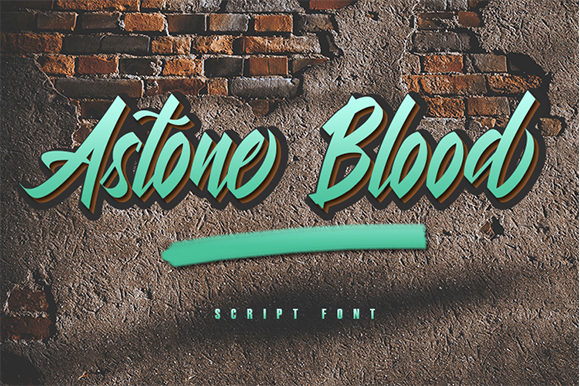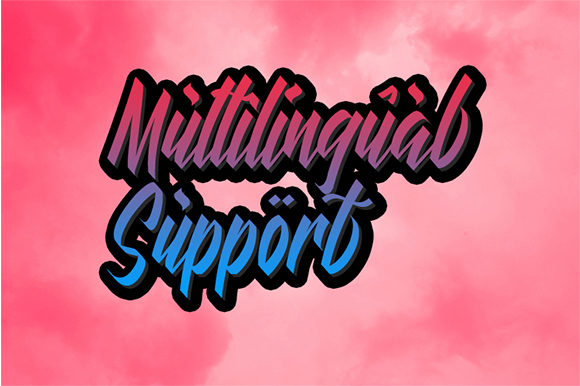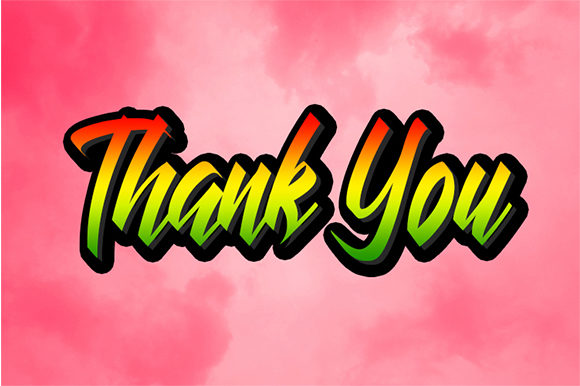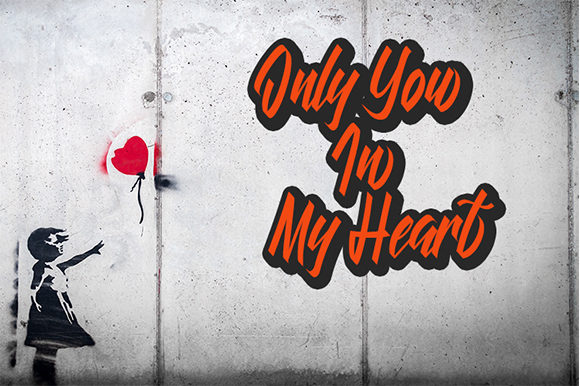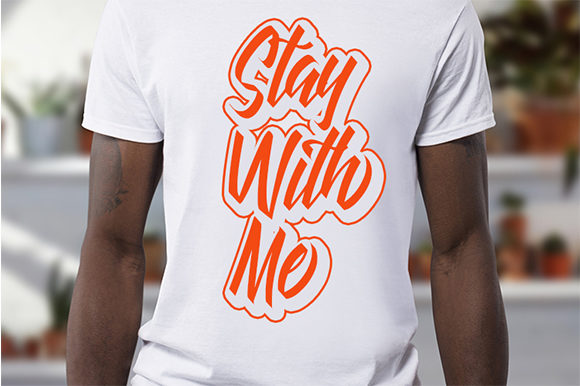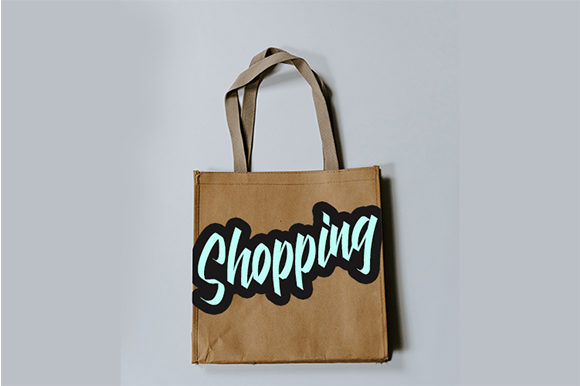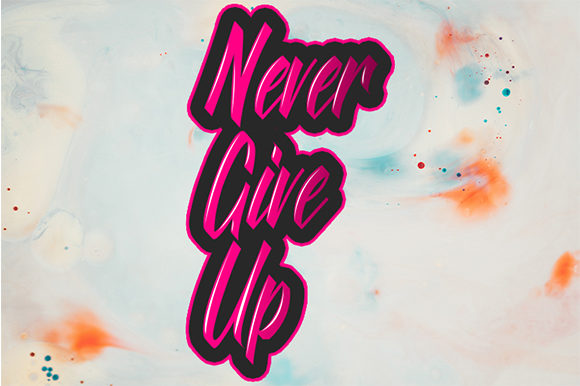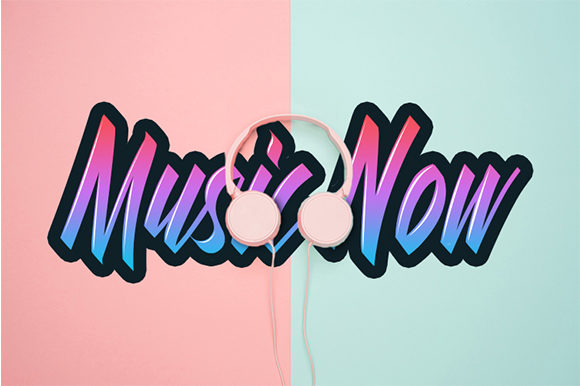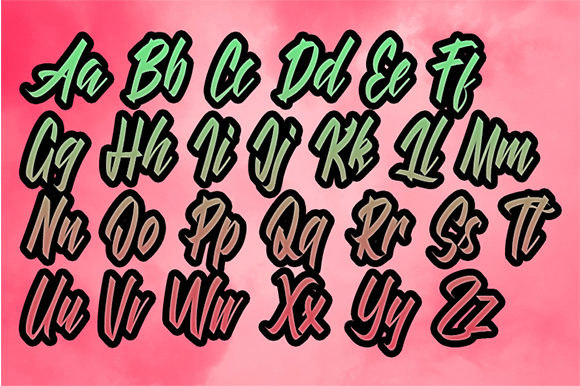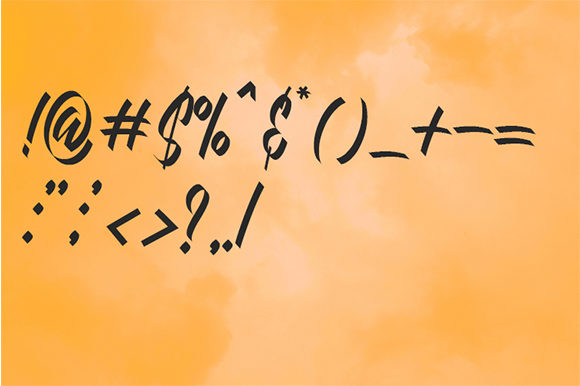
HomeScript FontsAstone Blood Font Script Fonts Astone Blood Font FacebookXPinterestWhatsApp Astone Blood Font Poster 2 Astone Blood Font Poster 3 Astone Blood Font Poster 4 Astone Blood Font Poster 5 Astone Blood Font Poster 6 Astone Blood Font Poster 7 Astone Blood Font Poster 8 Astone Blood Font Poster 9 Astone Blood Font Poster 10 Astone Blood Font Poster 11 About Astone Blood Font Astone Blood is a sweet and cool handwritten font, perfectly made to add an urban feel to any design idea. DOWNLOAD ON CREATIVE FABRICAThis font is sold and delivered by Creative Fabrica. Font Canyon may earn a commission if you buy through this link. People also explored Climbing Font Three Peat Winner Family Font Justice Font Cornucopia of Dingbats Six Font Janetha Hasley Font Housing Font Twisted Willow Font Shoterly Font Anthony Hartman Font 358 0 TagsAstone Blood Font Previous articleKastangel FontNext articleDelilah Font LEAVE A REPLY Cancel reply Comment: Please enter your comment! Name:* Please enter your name here Email:* You have entered an incorrect email address! Please enter your email address here Website: Save my name, email, and website in this browser for the next time I comment. Personal Use Free Squealer Personal Use Free Read more about this font Rakesly Personal Use Free Read more about this font Angola Beach Personal Use Free Read more about this font Castina Personal Use Free Read more about this font BLOG Transform Your Website: Elevate Your Typography with 7 Best Web Font Generators Are you ready to transform your website's typography from ordinary to extraordinary? Great! Today, we're diving into the world of web font generators, which... Best Fonts for T-Shirt Design – Top 2025 Picks How to Cut Any Font on Cricut: Convert a Font to SVG (Free) Top 10 Handwritten Fonts That Elevate Your Designs